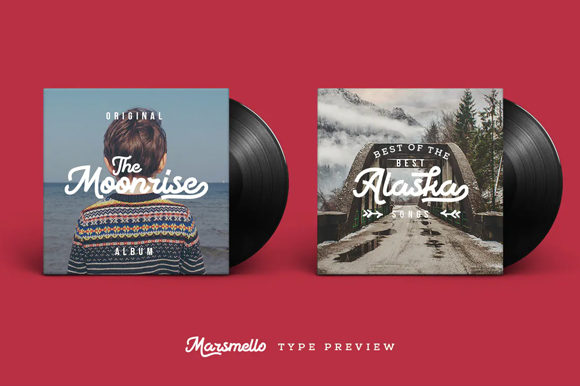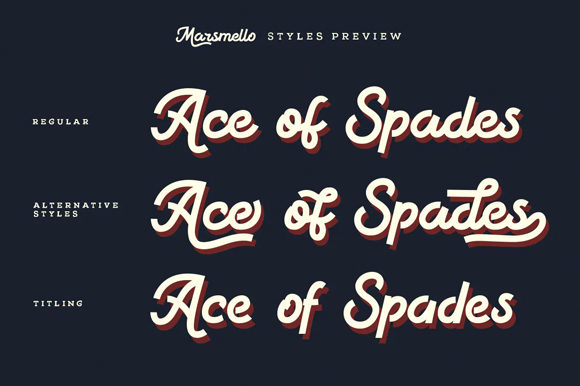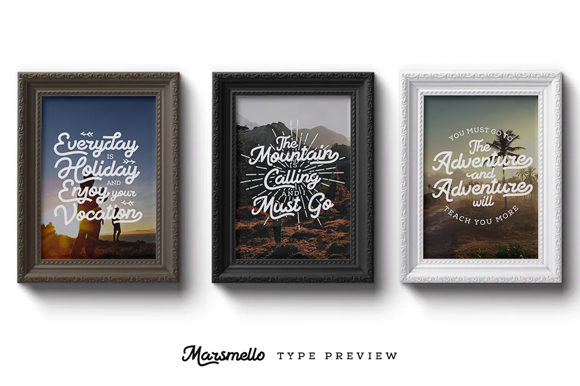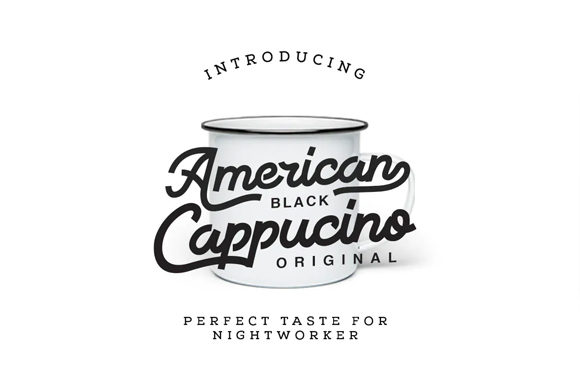
About Marsmello Font
Marsmello sounds like a stunning handwritten font that brings a sense of beauty and elegance to any design project. With its flowing and graceful characters, Marsmello is versatile and can be used in various creative contexts. Here are some ideas on how you can make the most of Marsmello and watch your projects come alive:
1. Wedding Invitations: Use Marsmello to design romantic and charming wedding invitations, setting the tone for a special and memorable celebration.
2. Greeting Cards: Craft heartfelt and personalized greeting cards for birthdays, anniversaries, or any occasion, adding a touch of warmth and sincerity with Marsmello’s flowing script.
3. Quotes and Posters: Turn inspirational quotes or motivational sayings into eye-catching posters and prints using Marsmello’s beautiful and flowing letters.
4. Social Media Graphics: Elevate your social media presence by incorporating Marsmello into your graphics, creating engaging and visually appealing posts.
5. Logo Design: Use Marsmello to create elegant and sophisticated logos that reflect the essence of your brand with a touch of grace.
6. Stationery: Incorporate Marsmello into stationery designs, such as letterheads, business cards, and envelopes, to add a sense of refinement and professionalism.
7. Blog Headers: Use Marsmello in blog post headers and featured images, giving your blog a polished and inviting visual identity.
8. Event Invitations: Design stylish and chic event invitations for parties or special gatherings, using Marsmello to add an element of beauty and allure.
9. Art Prints: Create art prints featuring calligraphy or typography art, showcasing Marsmello’s flowing and expressive strokes.
10. Book Covers: Design book covers for fiction or poetry books, infusing Marsmello’s elegant script to captivate readers.
11. Menu Design: Use Marsmello in restaurant menus to add a touch of sophistication and flair, enhancing the dining experience.
12. Packaging Labels: Design refined and tasteful labels for products, incorporating Marsmello’s beautiful script to stand out on the shelves.
13. Fine Art Lettering: Experiment with Marsmello in fine art lettering pieces, creating unique and expressive artworks.
14. DIY Crafts: Personalize DIY projects with Marsmello, adding a sense of beauty and creativity to your handmade creations.
15. Home Decor: Create elegant and refined home decor items, such as framed quotes or decorative signs, using Marsmello’s flowing script.
16. Personal Branding: Use Marsmello to develop a consistent and sophisticated visual identity for personal branding projects.
17. Fine Stationery: Design luxury and high-end stationery products, using Marsmello to add a touch of elegance and exclusivity.
18. Bridal Shower Invitations: Design sophisticated and stylish bridal shower invitations using Marsmello’s beautiful and flowing calligraphy.
19. Calendars and Planners: Create stunning calendar designs or planner pages with Marsmello, adding a touch of charm to your organizational tools.
20. Fashion and Beauty: Use Marsmello in fashion and beauty branding to convey elegance and style.
In conclusion, Marsmello’s beautiful and flowing handwritten style makes it a perfect choice for a wide range of creative projects. Whether you’re working on wedding invitations, social media graphics, or DIY crafts, Marsmello’s grace and elegance will bring your ideas to life. Embrace the beauty of Marsmello and watch your designs come alive with a touch of sophistication and charm.